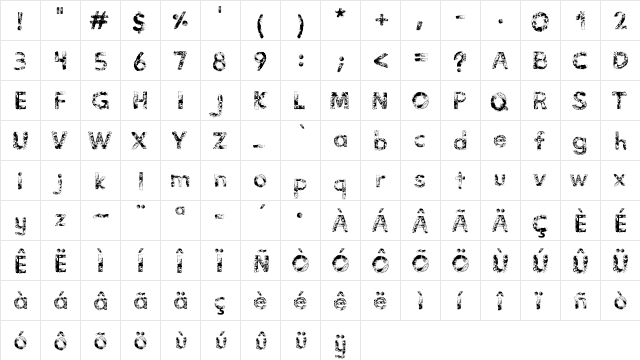
Vidas Secas Regular
| Foundry | Ana Paula Filipi Putka |
| Designer | Ana Paula Filipi Putka |
Design Context for Vidas Secas Typeface
Vidas Secas is a composed and adaptable typeface that performs quietly and consistently across a wide range of design contexts.